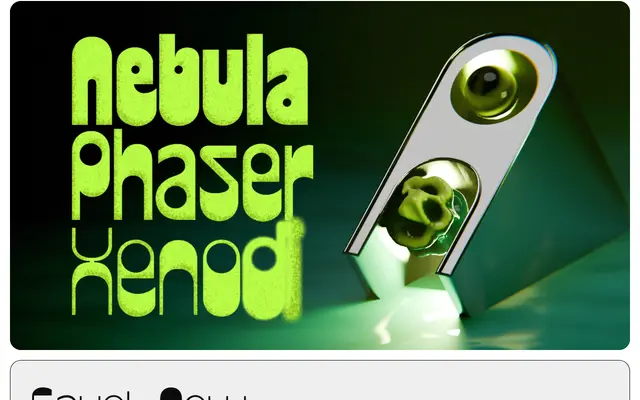
Gayot New
Big Fog Foundry · Brian Dove · 2022
A contemporary eight-weight revival of Jean-Pierre Gayot's 1973 Mecanorma dry-transfer lettering face, extended from its original single Black weight for headline and logo use.
Brian Dove's reworking of the Mecanorma original retains the source material's odd mix of retro and futuristic character while adding seven new weights from Thin to Black. OpenType alternates offer a no-descender option, alternate letterforms for a, c, G and Y, and case-sensitive punctuation, giving designers room to push the face further for short-burst display settings. Best suited to logos, call-outs and large-scale headlines where its slightly awkward charm reads as personality rather than accident.
A revival of a 1970s dry-transfer lettering face with an explicitly decorative, headline-only character; its futuristic yet retro tone and short-descender options place it firmly in the display category with a retro-futurist flavour.